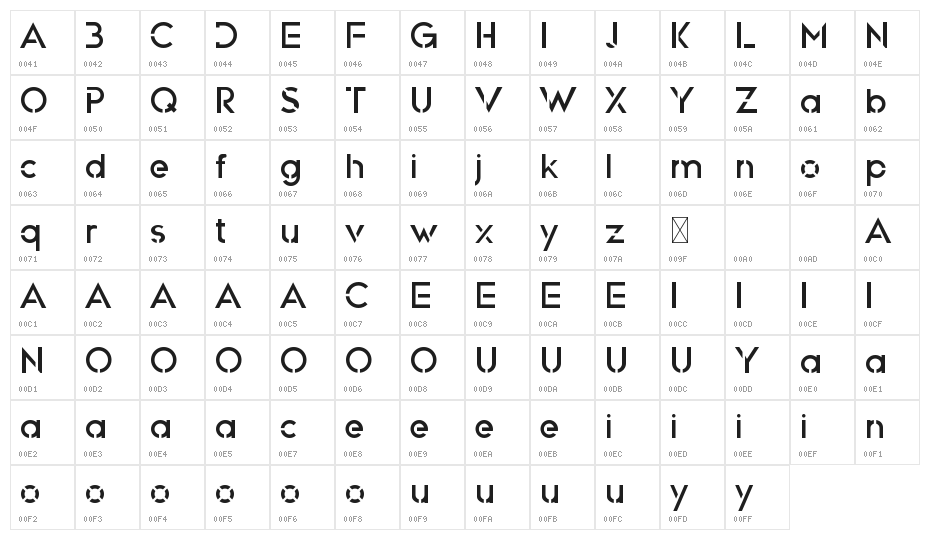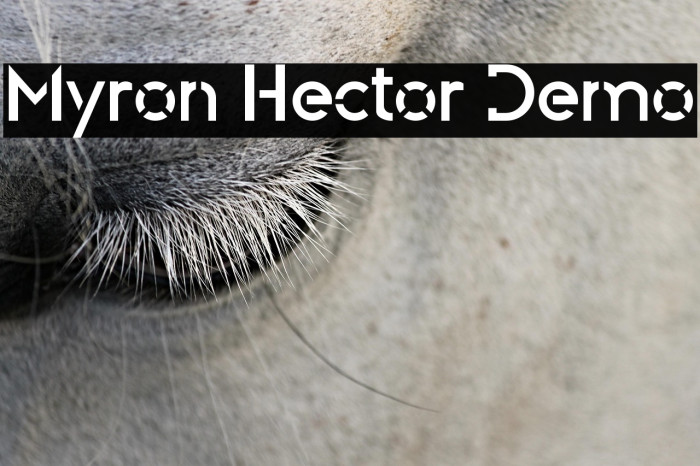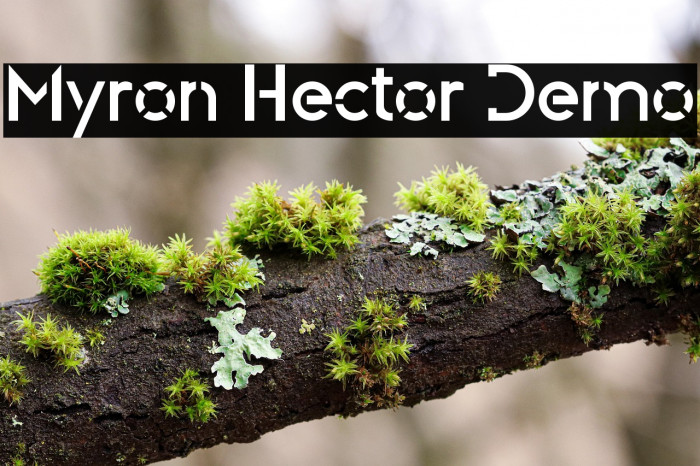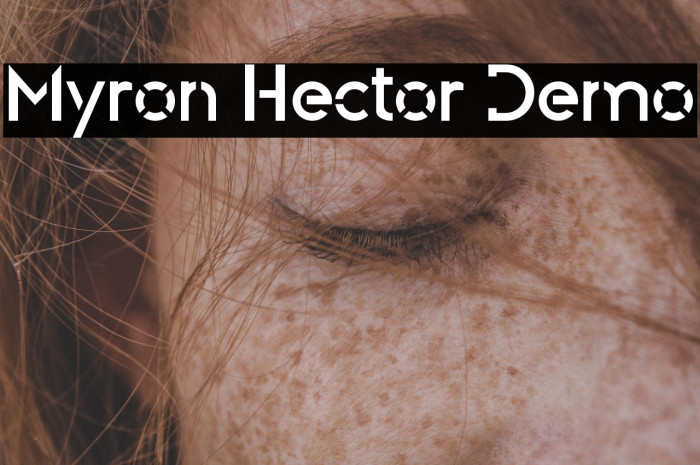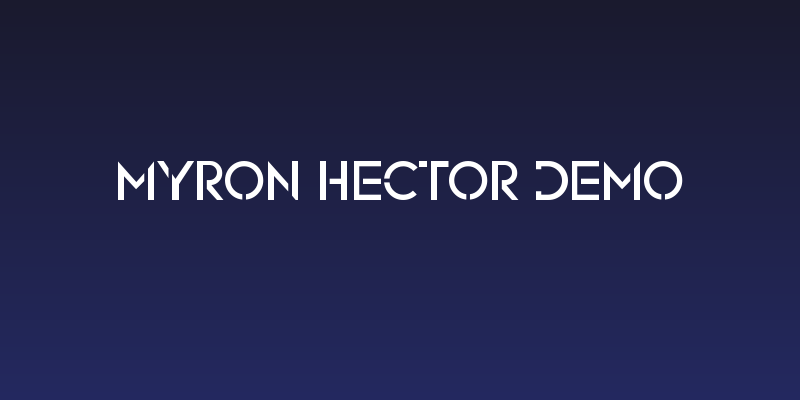
Myron Hector Demo Font
Myron Hector Demo Description
This font features a modern and geometric design with a unique blend of sharp angles and smooth curves. The uppercase letters exhibit a bold and striking appearance, with distinct cutouts and angular elements that create a futuristic feel. The lowercase letters maintain a consistent style, offering a harmonious balance between readability and artistic flair. The numbers and special characters follow the same design principles, ensuring a cohesive look across all glyphs. This font is ideal for projects that require a contemporary and edgy aesthetic, making it suitable for branding, advertising, and digital media.
| Proposed Projects | Ideal for branding, advertising, digital media, and projects requiring a contemporary aesthetic. |